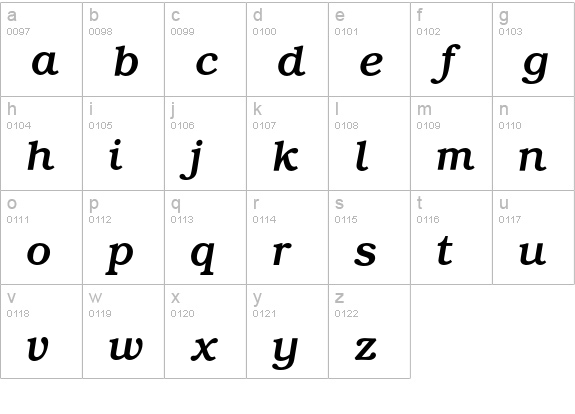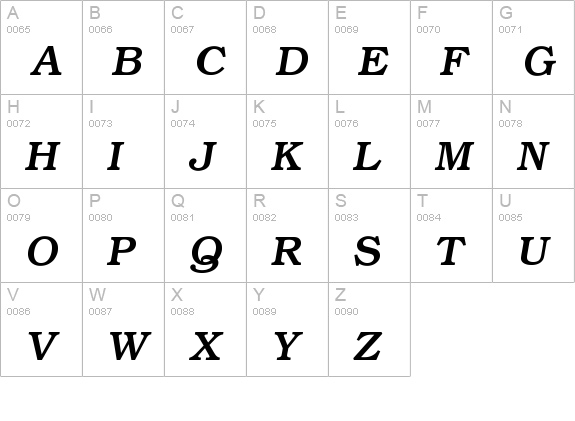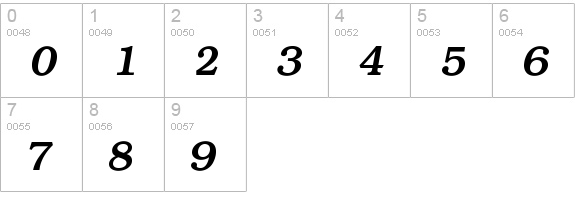
Bookman* Medium Italic is a balanced, medium-weight, italic variant in the Bookman* typeface family \xE2\x80\x94 well suited to sub-headlines, navigation, and balanced editorial work.
Bookman Medium Italic font exudes elegance and sophistication with its unique blend of classic and modern design elements. The italic style adds a touch of flair to the timeless Bookman typeface, making it perfect for adding a touch of refinement to any project. This versatile font is ideal for a wide range of design applications, from elegant invitations to stylish branding materials. Its medium weight strikes the perfect balance between readability and impact, making it a practical choice for both digital and print projects. Best of all, Bookman Medium Italic font is freely available to download at FontsMarket.com. Whether you're a seasoned designer looking to add a new tool to your kit or a beginner exploring typography for the first time, this font is a valuable addition to any collection. Download it today and elevate your designs with the timeless beauty of Bookman Medium Italic font.